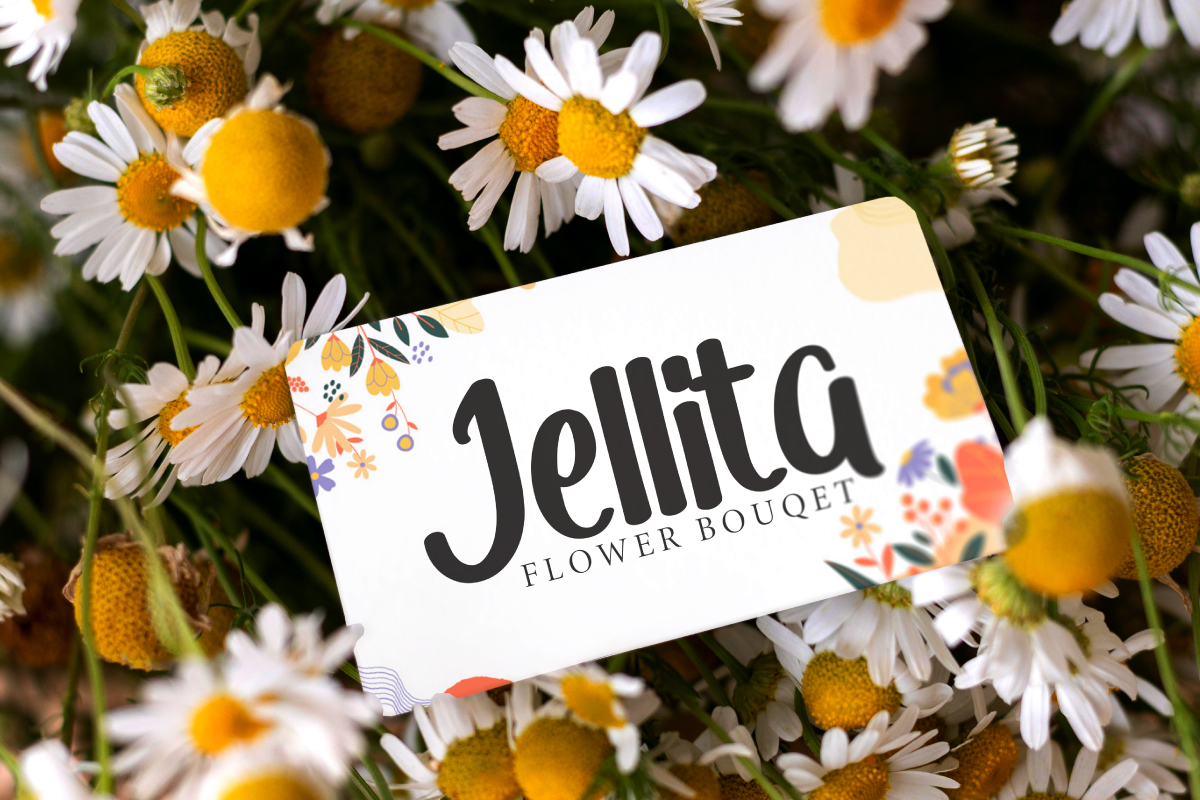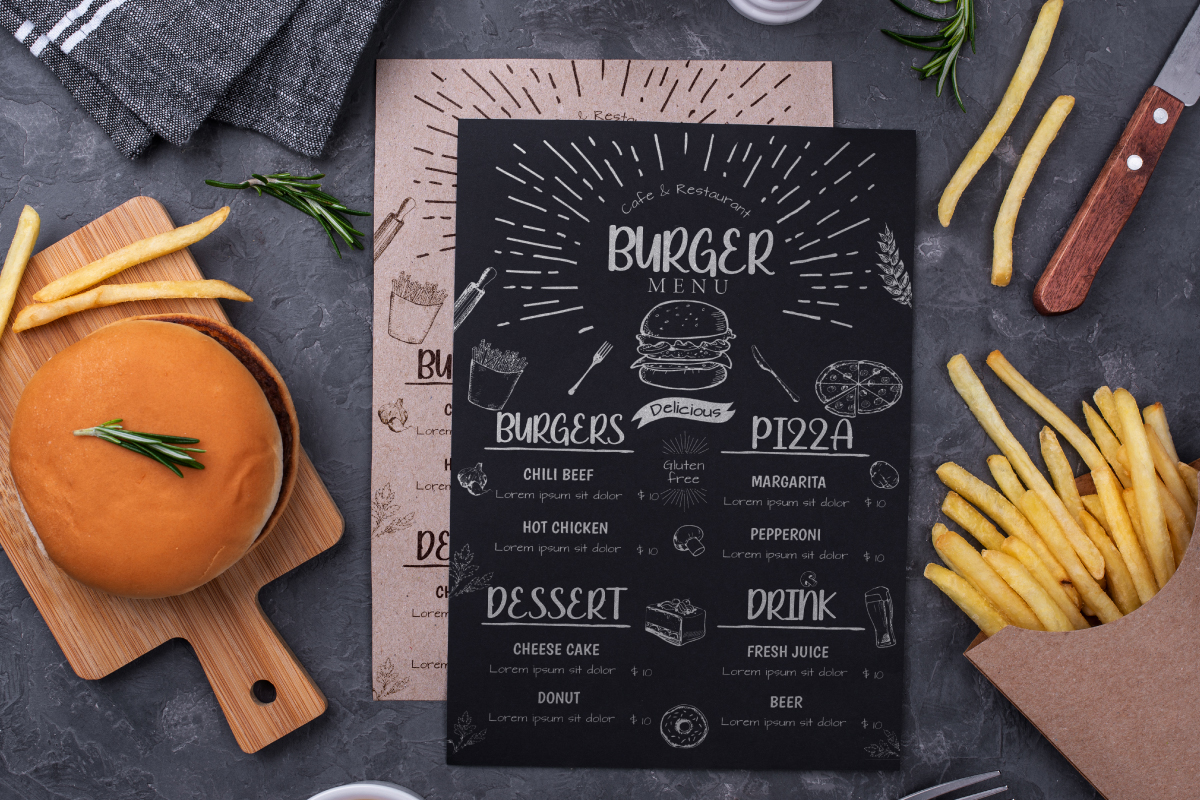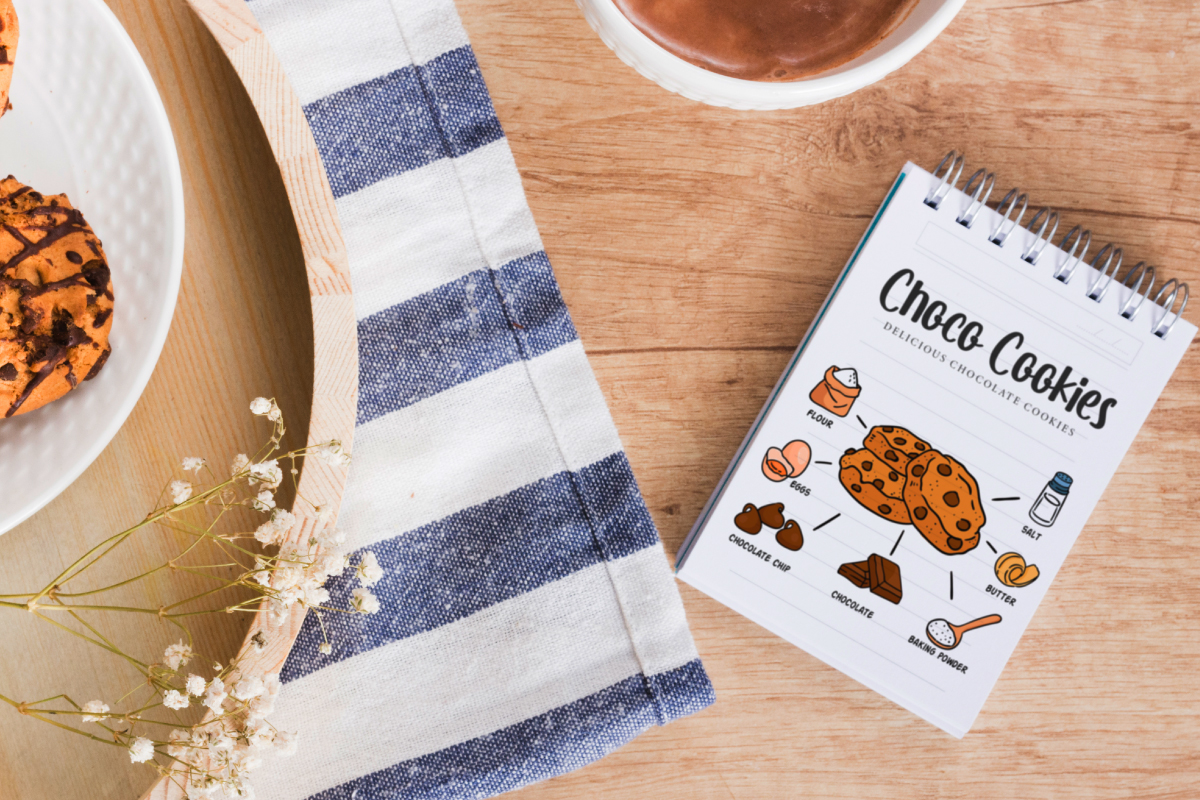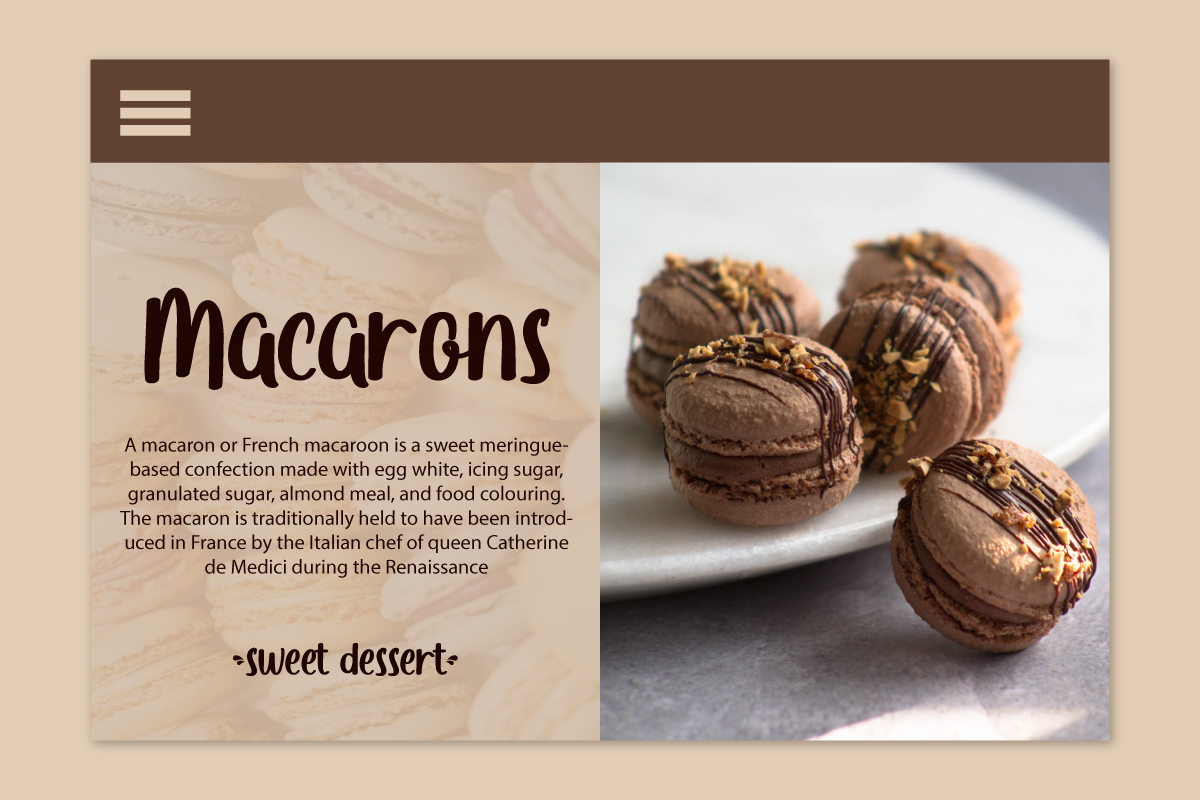
Flower Days Font
Flower Days Script Font
This is a original brush script font. The style of this font are stylish, classic, cute and bold brush font.  Perfectly fit for branding, logo, wedding things, greeting cards, fashion, lookbook, marketing promotion, anytime you want to look fancy elegant but still casual.